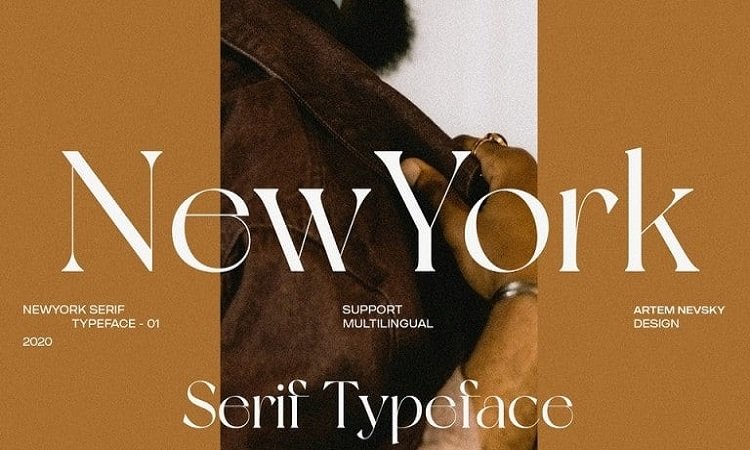
NewYork Serif Font Free
NewYork Serif Font is an elegant and modern contrast display serif typeface. It’s designed and shared by  Artem Nevsky. Made for any professional project branding. The font is best for fashion, magazines, logos and branding, social media and other artworks. Every letter has a unique and beautiful touch.